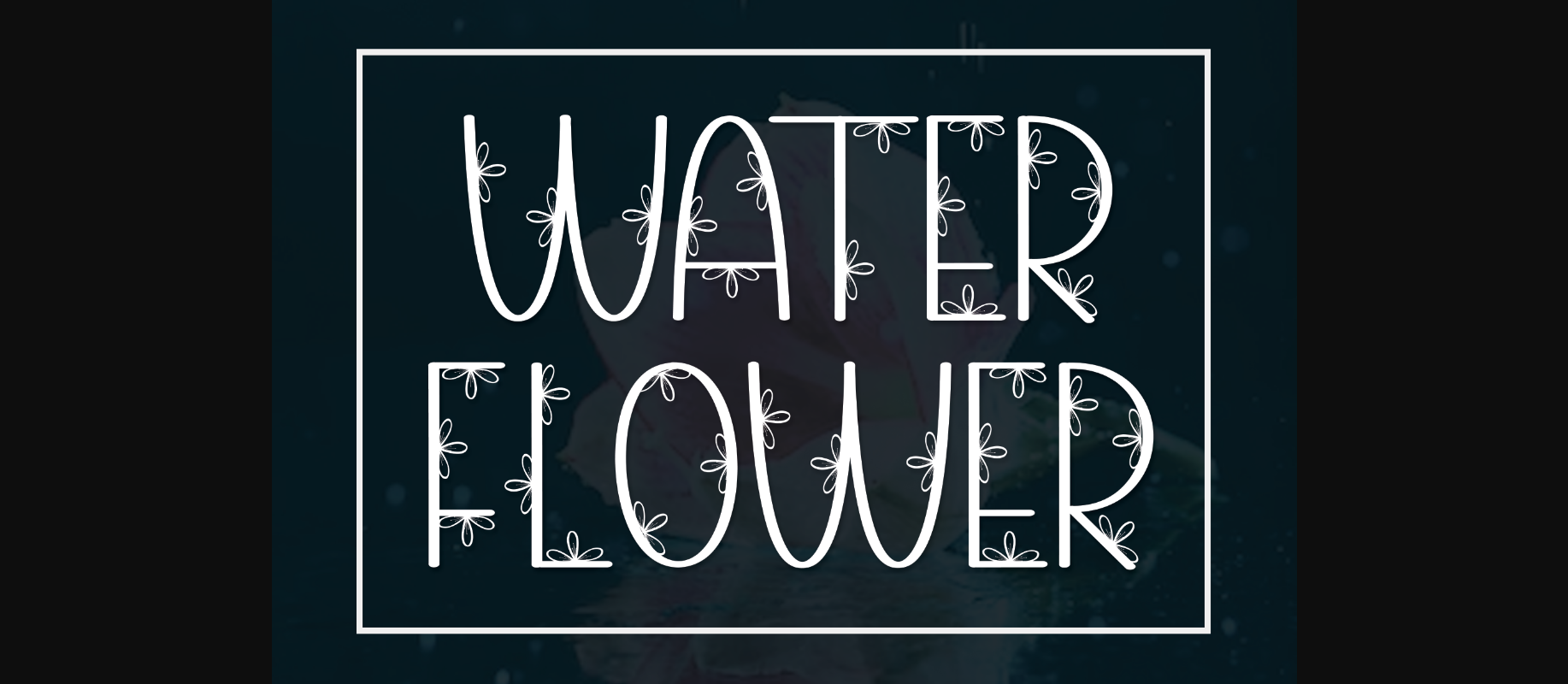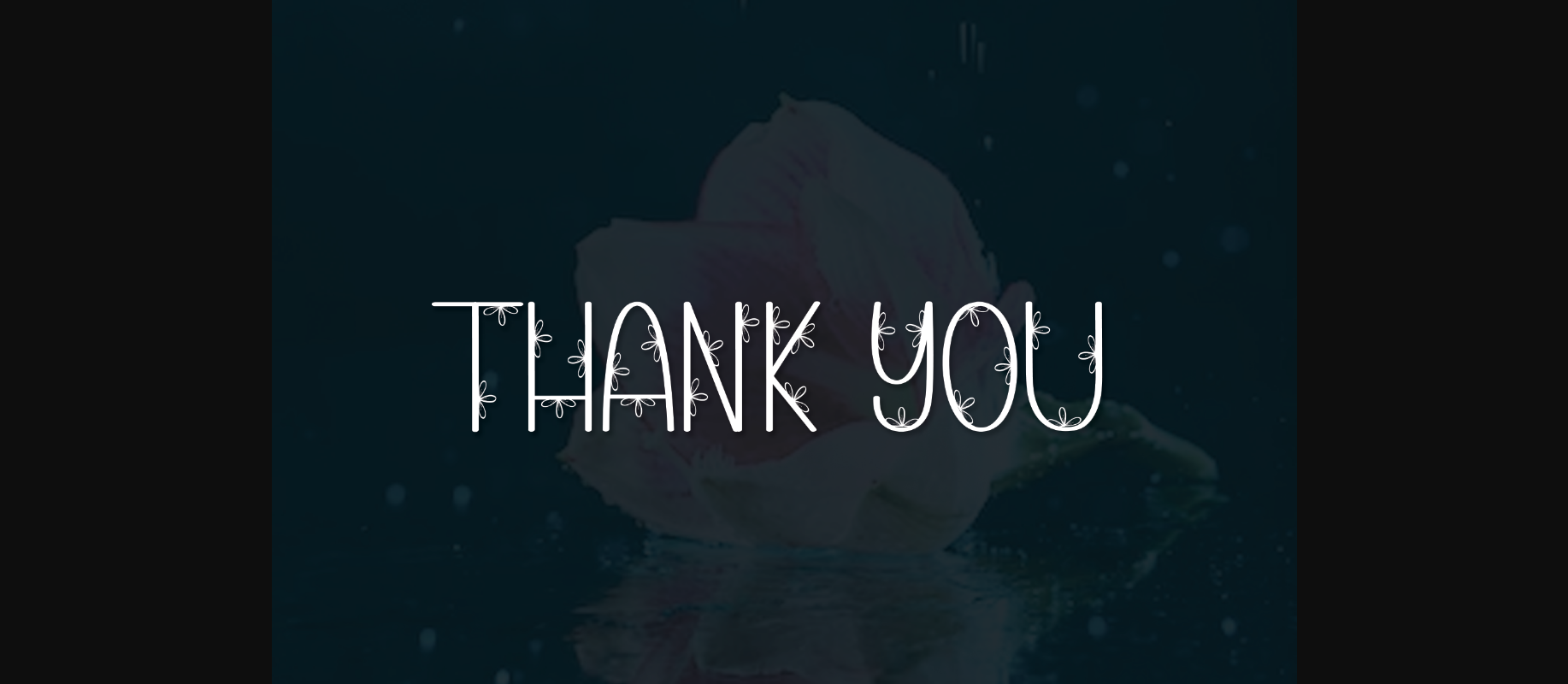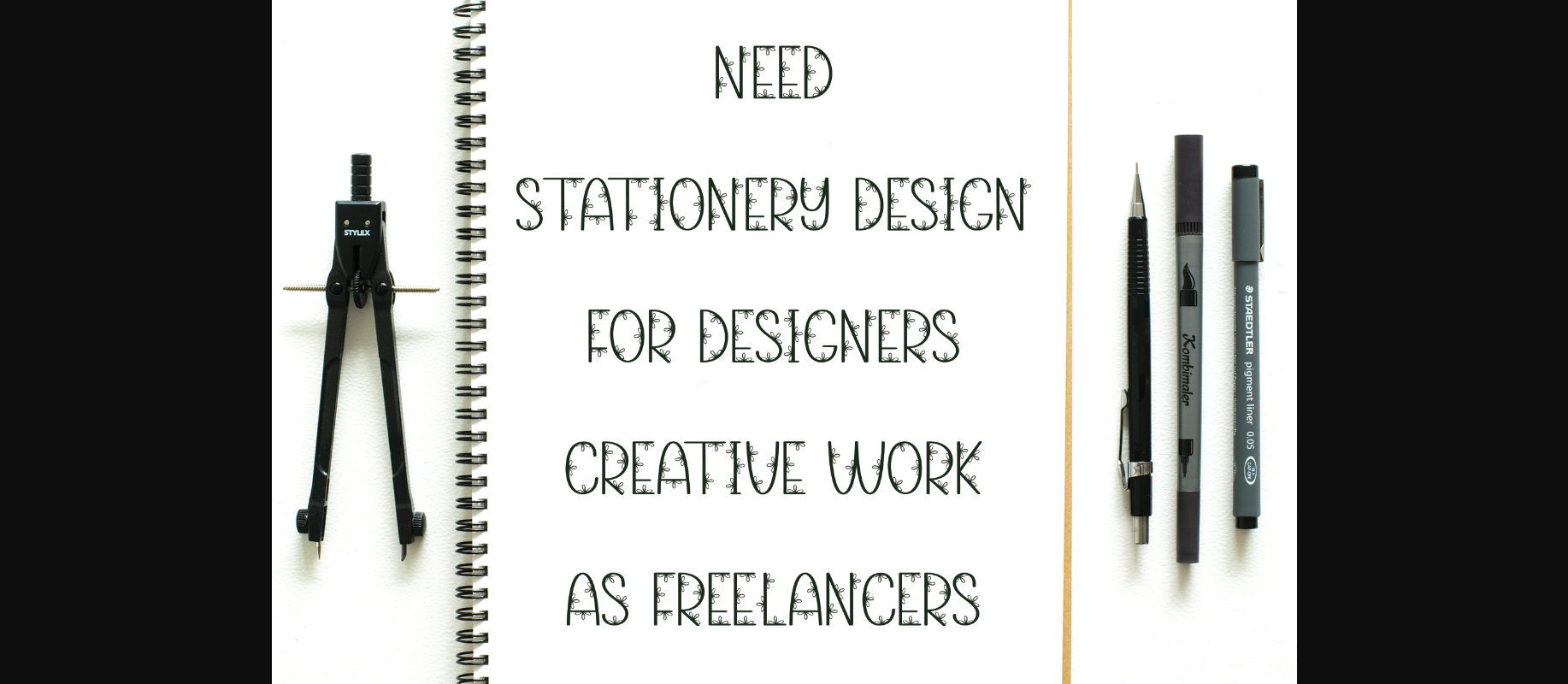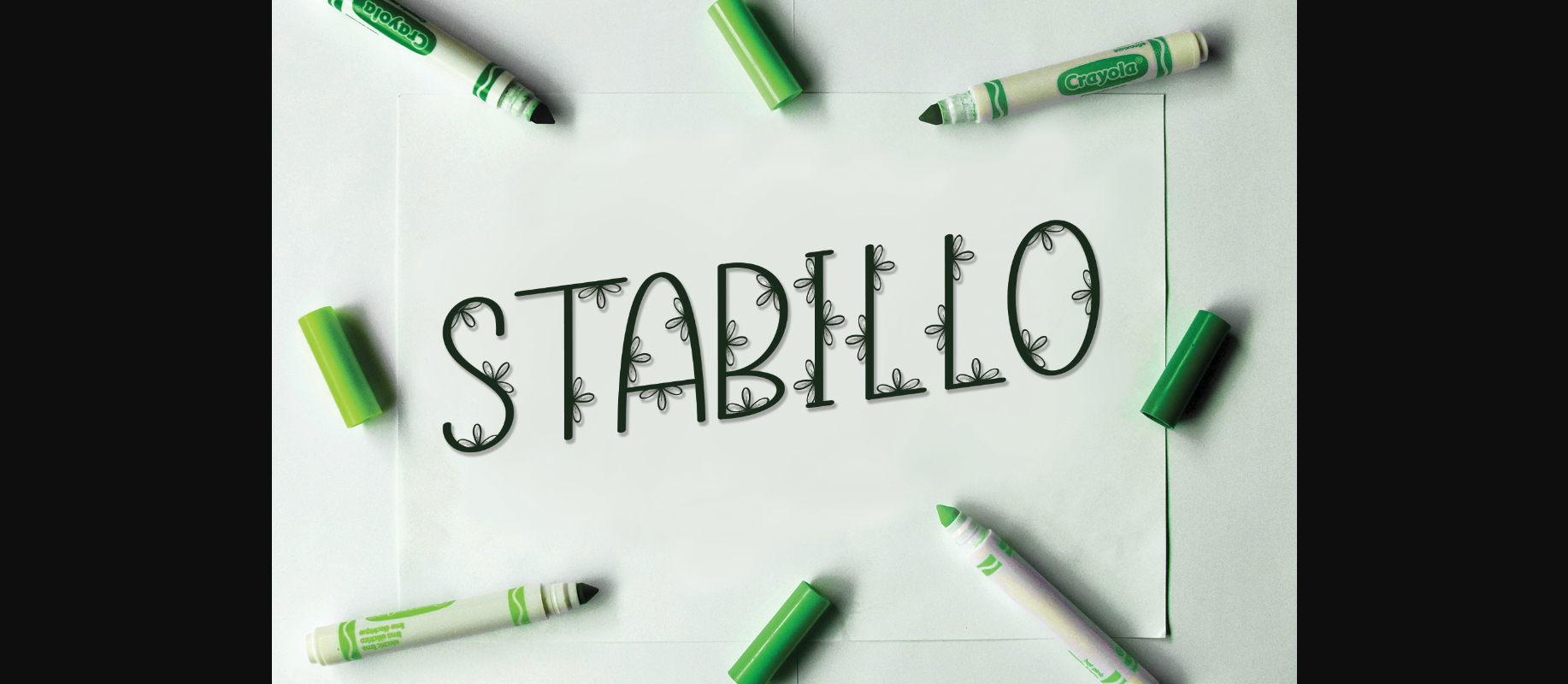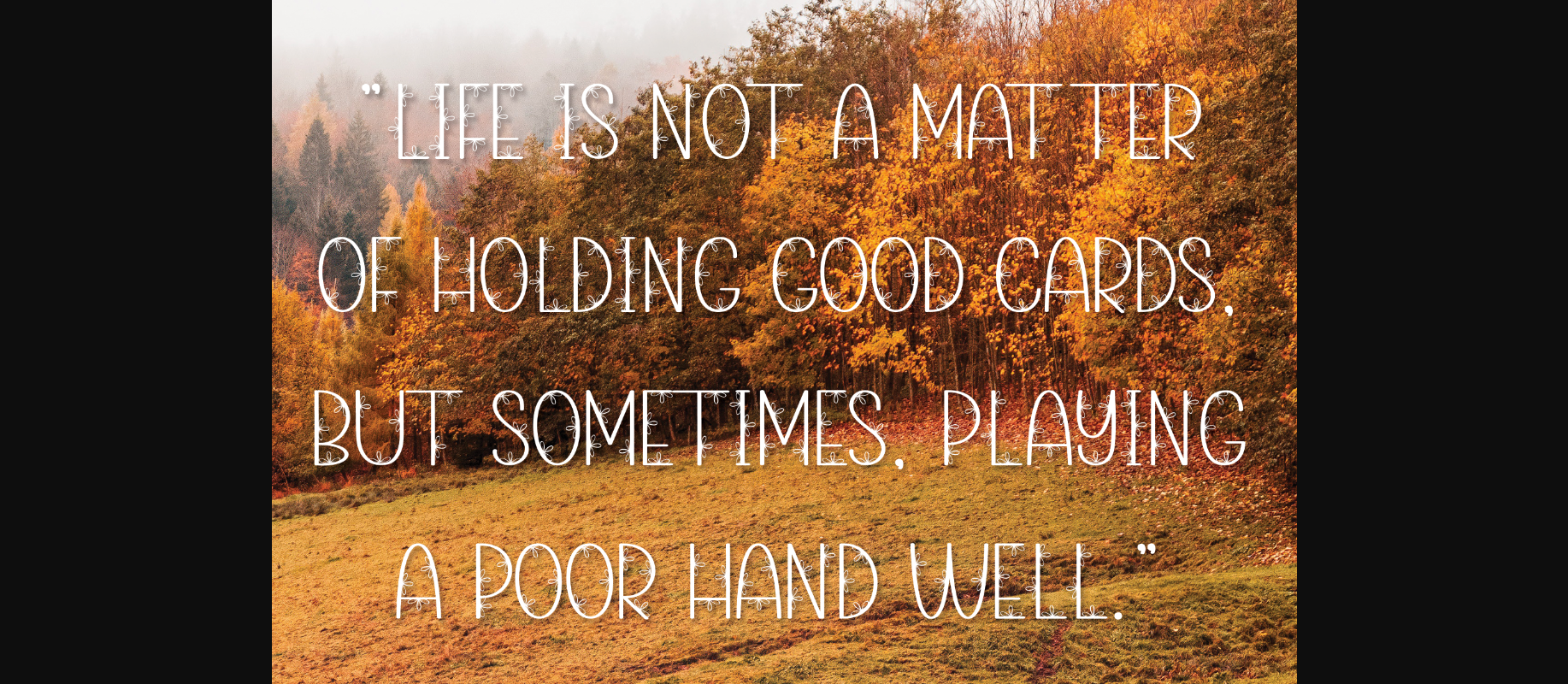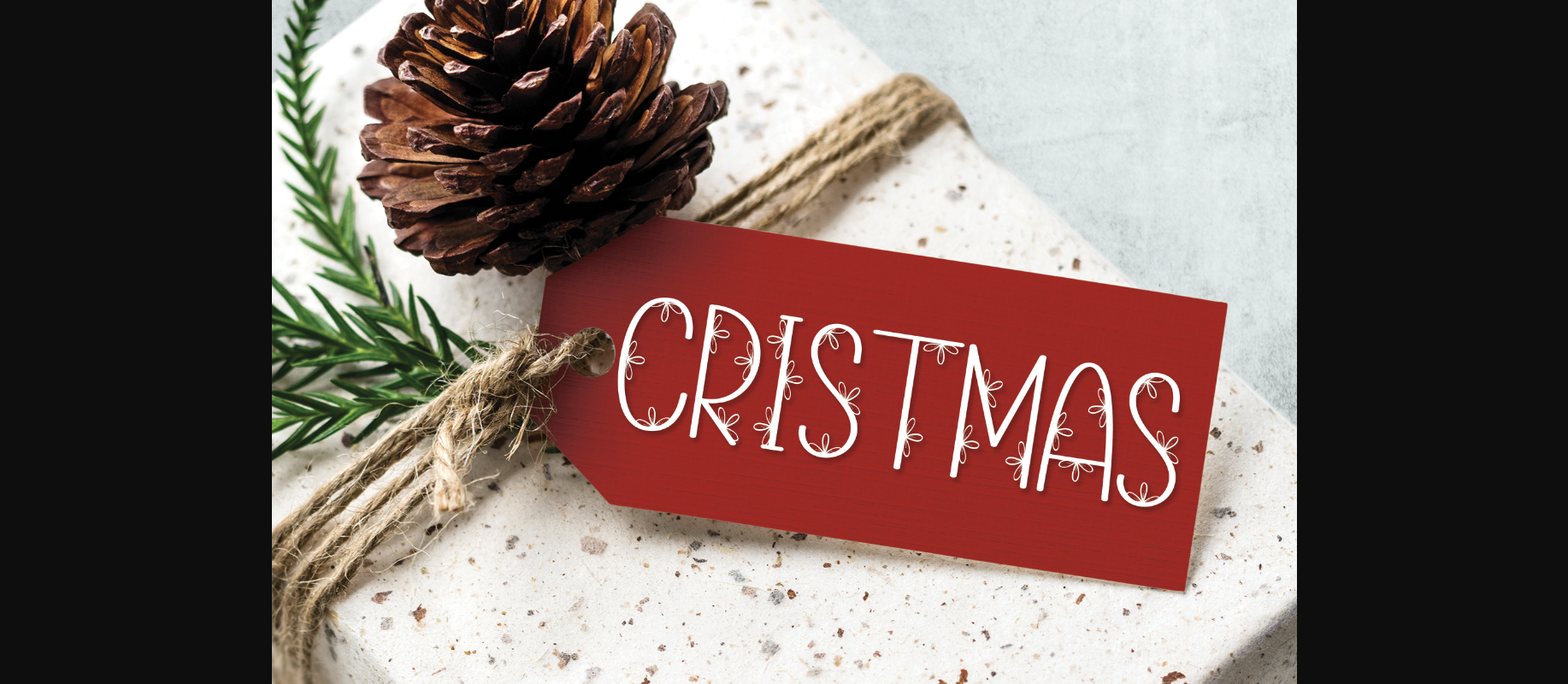
Water Flower Font
About Water Flower Font
Water Flower is a sweet and friendly decorative font. Cute and fun, this font is ideal for writing wedding invitations, cards, or any other design that might need a fun touch!